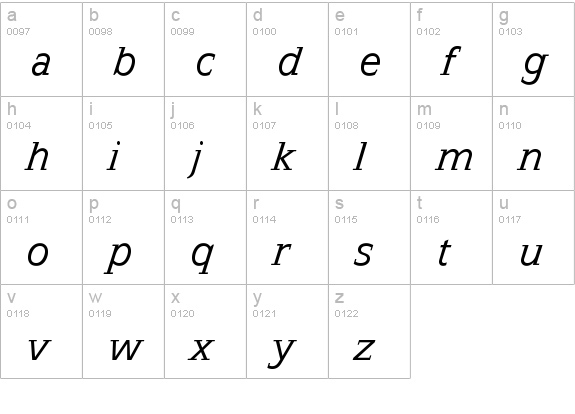
Epikur BQ Light Italic is a refined, elegant, italic variant in the Epikur typeface family \xE2\x80\x94 well suited to elegant body text, refined sub-headings, and luxury branding.
Epikur BQ Light Italic font exudes elegance and sophistication with its delicate and stylish design. The sleek, slanted letters of this font add a touch of modernity and flair to any design project. Perfect for adding a touch of sophistication to invitations, logos, branding materials, and more, Epikur BQ Light Italic font effortlessly combines classic charm with a contemporary twist. Best of all, this stunning font is available for free download at FontsMarket.com. Whether you're a designer looking to elevate your projects or an enthusiast seeking to enhance your creative endeavors, Epikur BQ Light Italic font is a versatile and eye-catching choice that is sure to impress. Download this font today and add a touch of elegance to your designs effortlessly.